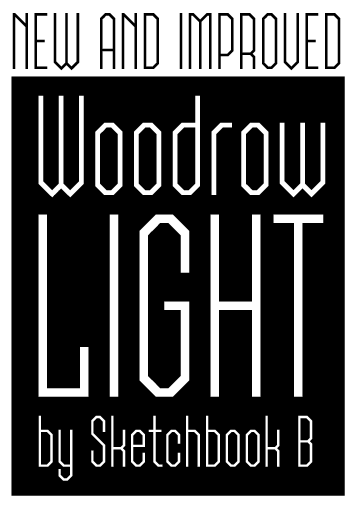
Woodrow Light
by Sketchbook B
Cloned from Woodrow by Sketchbook B.
Woodrow is one of my favorite creations and I wanted to create a lighter version. I may still add some characters to this font and to the original version.
Wonderful. This absolutely has that modern edge you were going for with the original.
I think this works even better than the original - beautifully proportioned. 10/10
I'm very happy with how it turned out. And some of the letters are only possible with the new Fontstruct 2.0 features. So thanks to the Fontstruct crew for making a great tool even better.